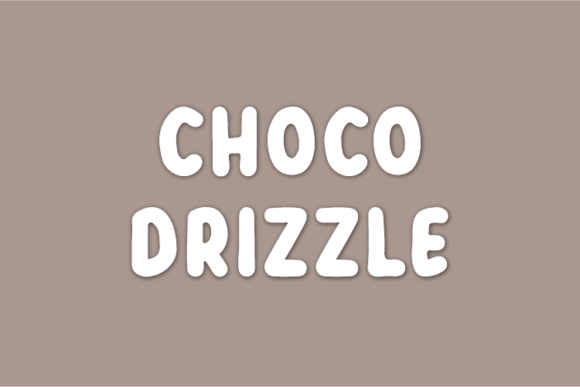
Journey into the world of typography with Choco Drizzle Font, a captivating display font that exudes originality and charm. With its unique construction, every letter is a testament to creativity, shaped without altering a single node in its indentation. This extraordinary approach results in a font that spellbinds with its distinctive character.
Unleash your creativity and make a lasting impression with Choco Drizzle Font. Its playful essence is perfect for quotes, adding a touch of whimsy and authenticity to your words. Transform ordinary notes into works of art, elevate your designs with captivating tees, and make your products stand out with a font that speaks volumes.
Choco Drizzle Font captivates with its organic flow, evoking the beauty of nature's imperfections. Its curves and strokes dance in harmony, creating a visual symphony that draws the eye and captivates the soul. Let your designs bloom with the essence of Choco Drizzle Font, a font that celebrates the artistry of handcrafted imperfection.
Dive into the realm of imagination with Choco Drizzle Font, a font that fuels your creative spirit. Its versatility knows no bounds, adapting effortlessly to a myriad of design projects. From logos that leave an indelible mark to branding that exudes personality, Choco Drizzle Font is your faithful companion, transforming your vision into a tangible reality.
With Choco Drizzle Font, your designs will resonate with authenticity and individuality. Its unique construction ensures that your creations stand out from the ordinary, capturing attention and sparking conversation. Embrace the beauty of imperfection and let Choco Drizzle Font guide you towards typographic excellence.